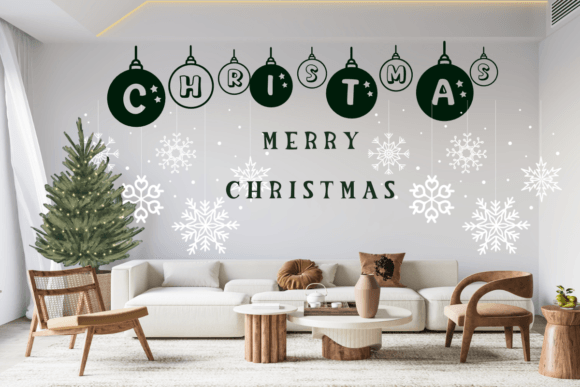
Christmas Ball Font
Unveiling Christmas Ball – a beautifully crafted, decorative font! It’s a versatile typeface capable of adding that intimate, human touch to your work. Be it scribbling daily musings in your diary, jotting down notes or curating personalized greeting cards, Christmas Ball works splendidly well. But don’t be fooled, its potential goes beyond those! This font has charm enough to embellish an array of designs – from banners to stationery, from T-shirts to coffee mugs, and even adding flair to your social media posts. The Christmas Ball font is your perfect tool to infuse creativity and personality in all your projects.